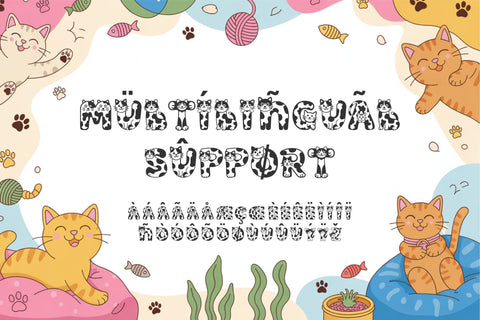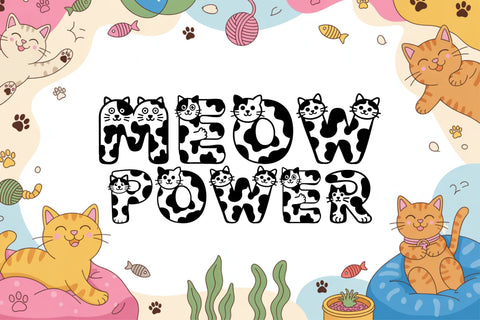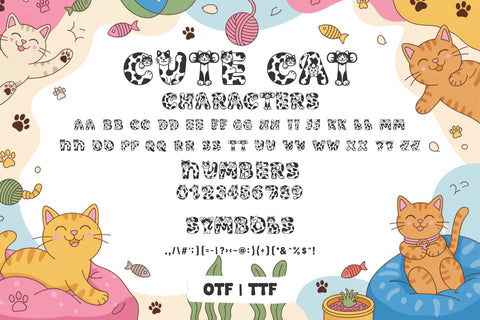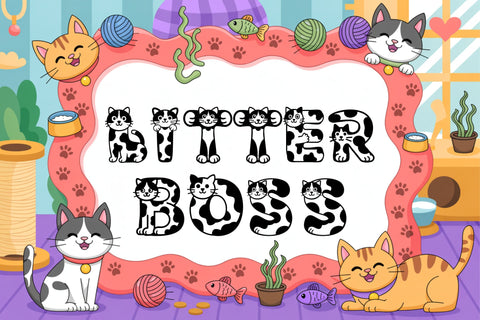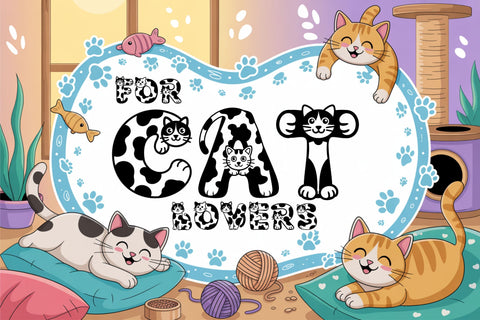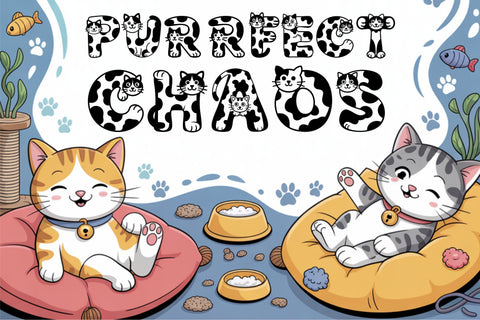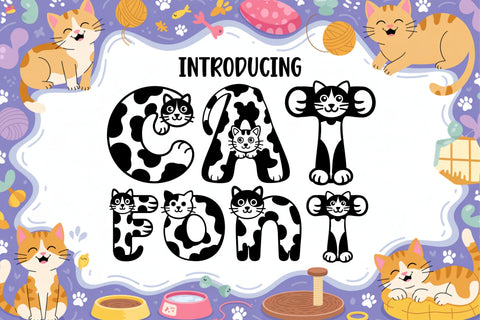
Cute Cat Font | Playful Kitty Alphabet Letters for Cricut
The Cute Cat Font is a playful, hand-drawn typeface filled with adorable feline charm! Each letter is decorated with fun cat-inspired details, making this font perfect for anyone who loves cats and creative design. Its whimsical style brings joy and character to your projects, whether you’re crafting for kids, creating pet-themed designs, or adding a fun twist to your artwork.
The bold, rounded letterforms ensure readability while still keeping a whimsical look, making it ideal for projects that need both clarity and cuteness. It’s especially loved for children’s designs, pet-themed projects, and decorative typography where a little bit of fun makes all the difference.
✔ Cute Cat Font – Hand-drawn playful typeface
✔ Perfect for stickers, shirts, labels, cards, and pet-themed designs
Perfect For:
🐾 Pet-themed apparel & accessories
🎂 Birthday invitations & party decorations
📚 Teacher printables & classroom crafts
👕 T-shirts, mugs, stickers & DIY projects
🎨 Scrapbooking, sublimation & Procreate art
💌 Greeting cards, nursery prints & decor